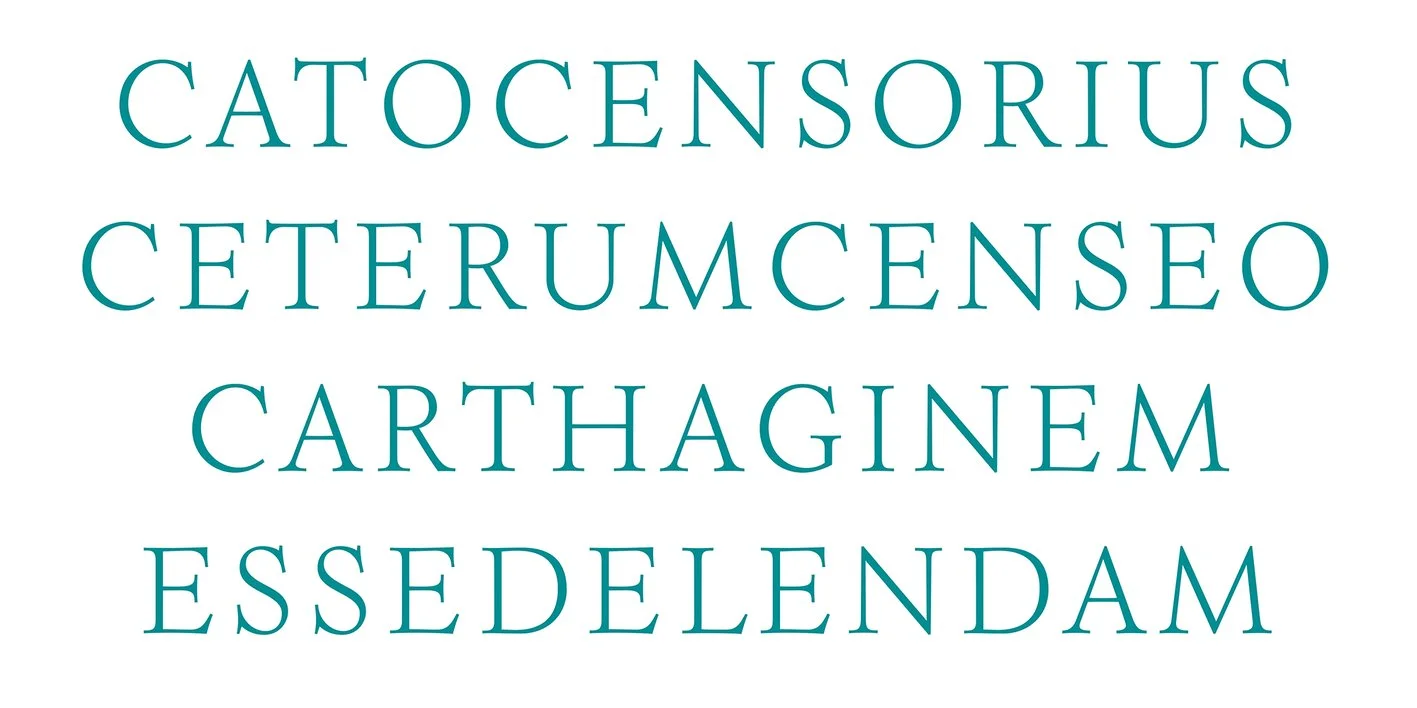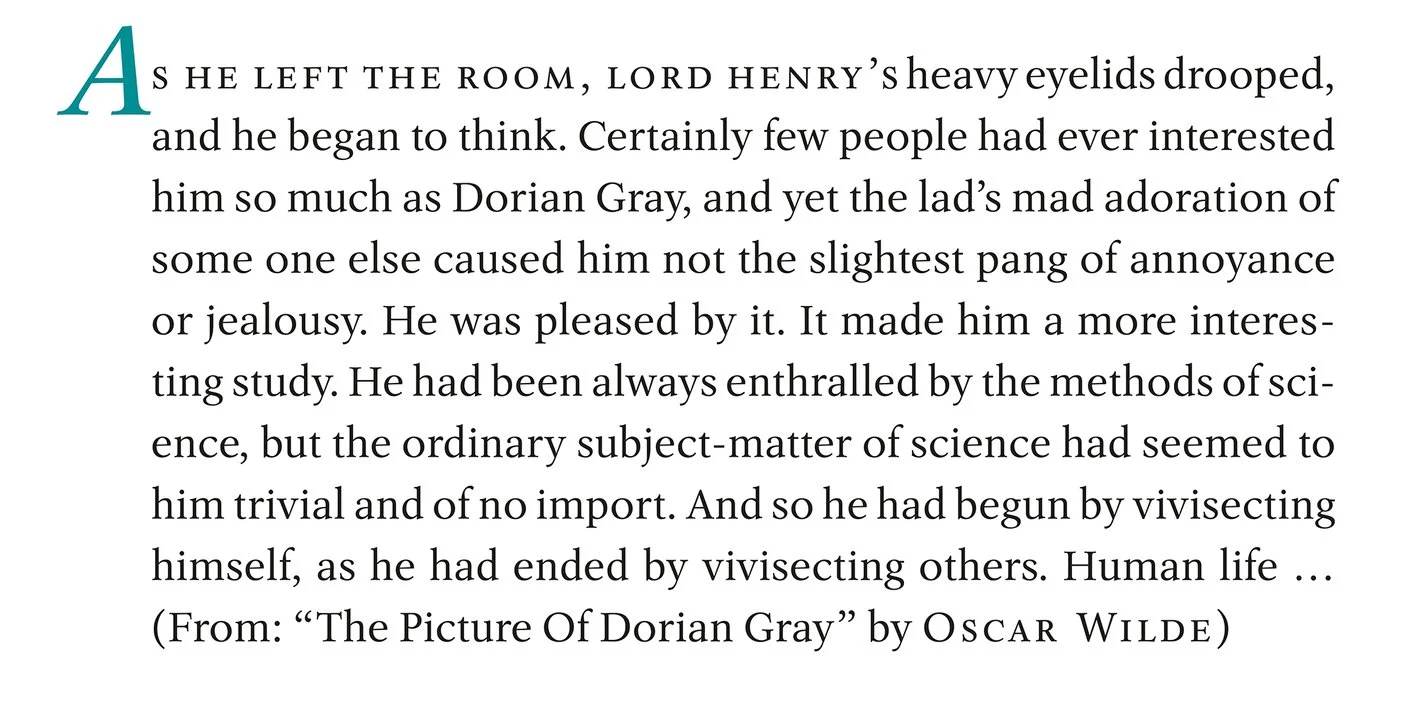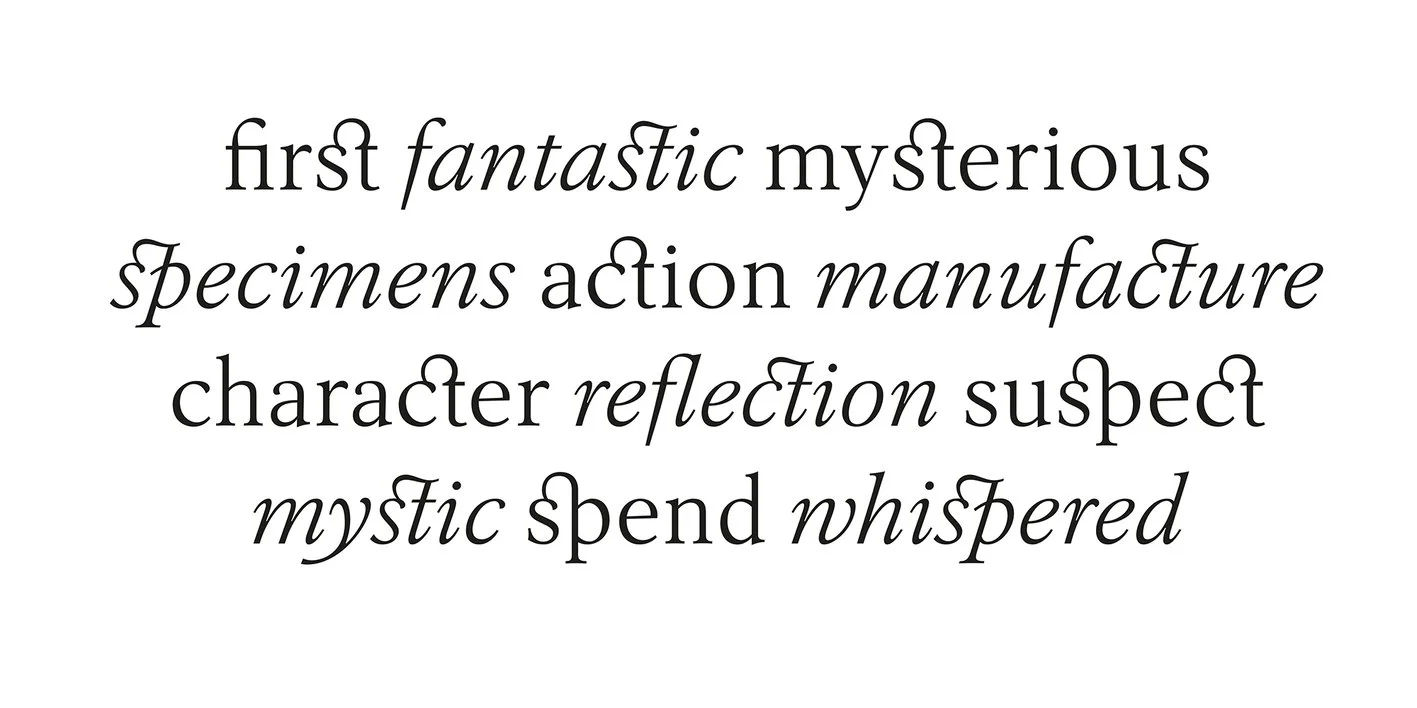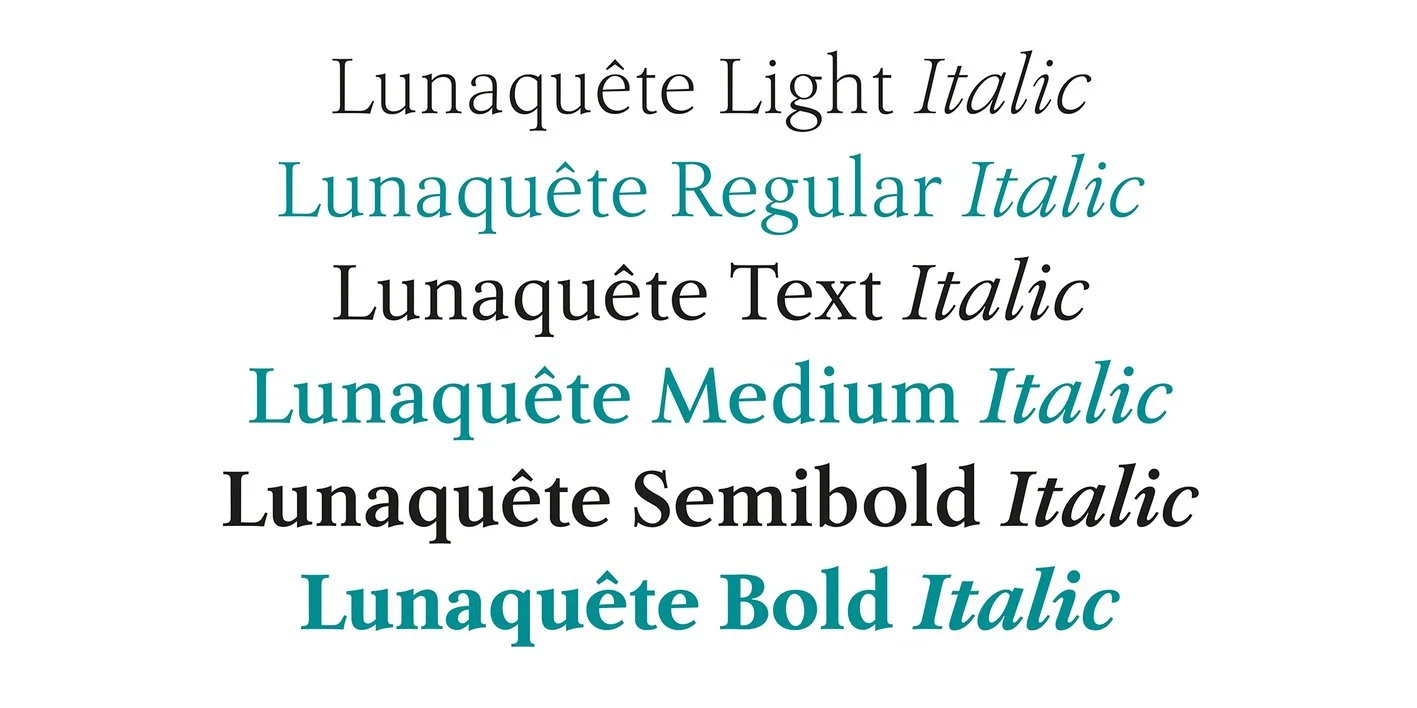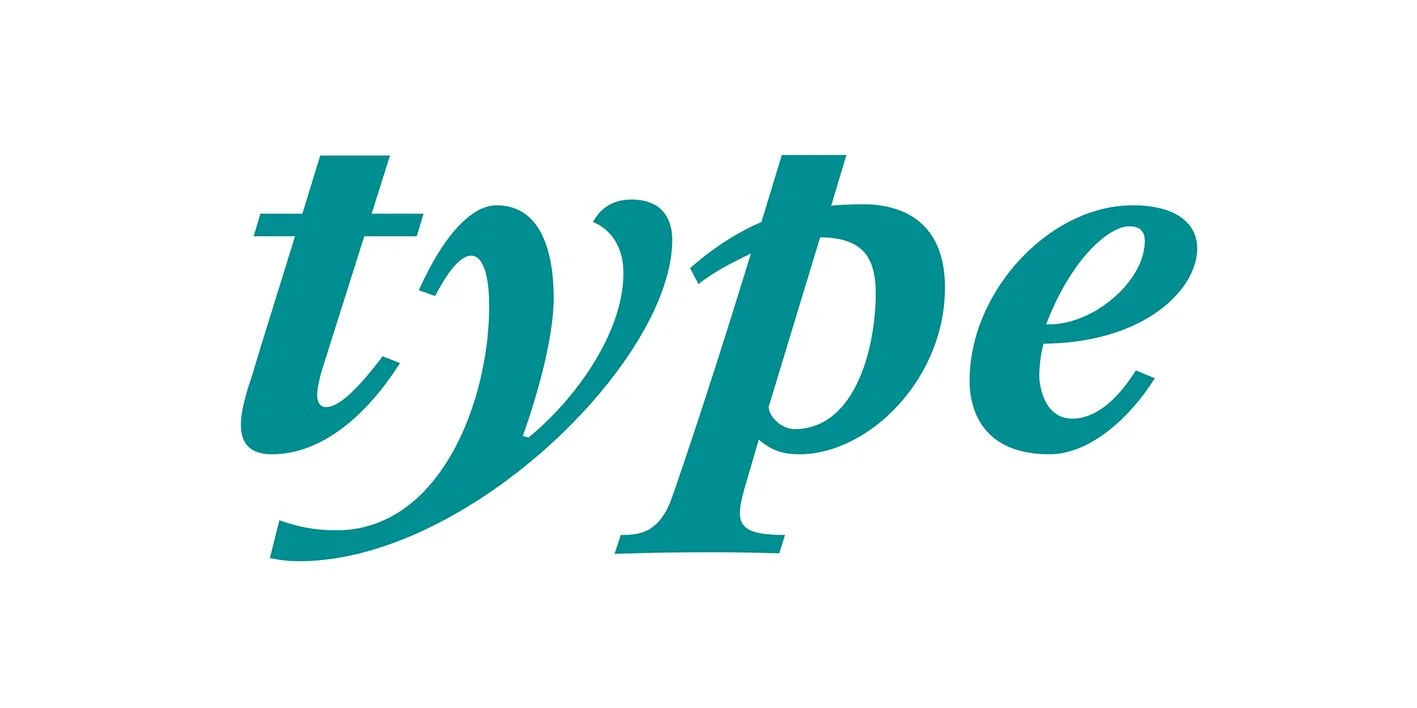
Lunaquete Font
Few typefaces manage to balance a confident voice that adapts to diverse briefs with genuine day-to-day practicality. Lunaquete is one of them. The typeface brings a versatile sensibility to a broad range of creative disciplines, with controlled contrast that rewards close inspection that holds up whether the work is print-first or screen-first.
In practice, Lunaquete proves particularly effective for environmental graphics, annual reports, advertising campaigns, packaging design, signage systems. Designers reaching for it find that the type decisions feel resolved rather than laboured — a useful quality when client timelines are tight.
The range of applications extends to web design, editorial layouts, poster creation, social media graphics. That breadth is deliberate: the proportions and spacing were stress-tested across a wide range of mock briefs before the typeface was finalised.
Independent studios handling packaging and editorial work find Lunaquete a reliable choice for projects that demand both personality and restraint. The design avoids the self-conscious quirkiness that dates quickly, settling instead for considered distinctiveness that holds up over time.